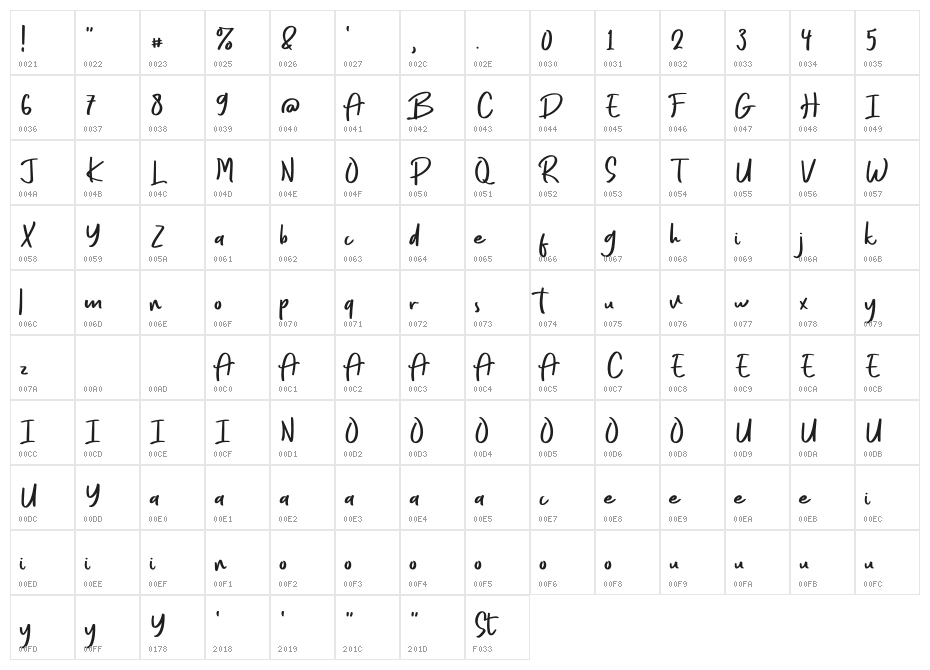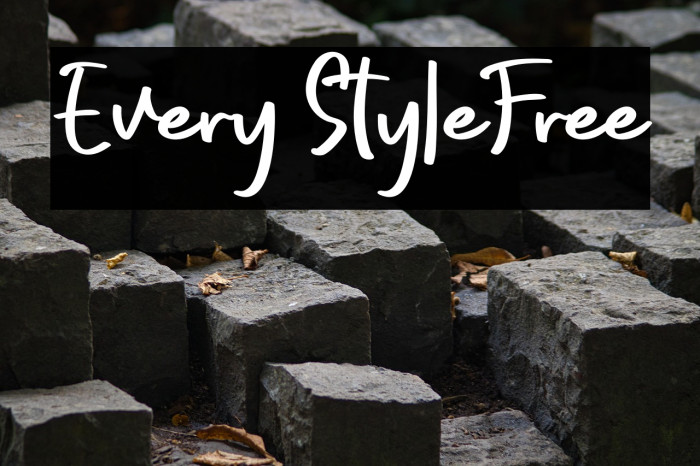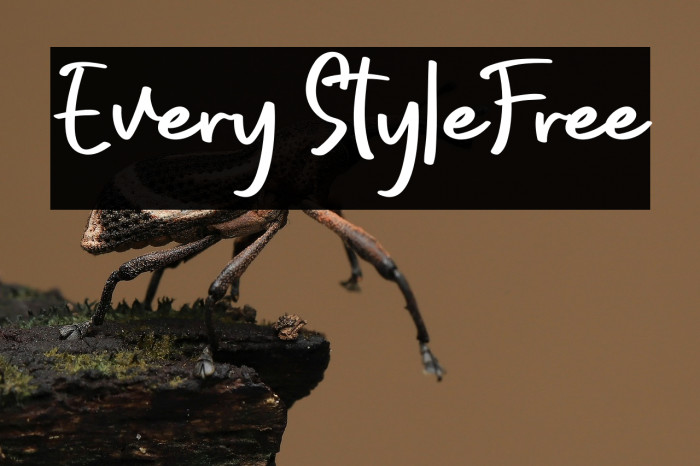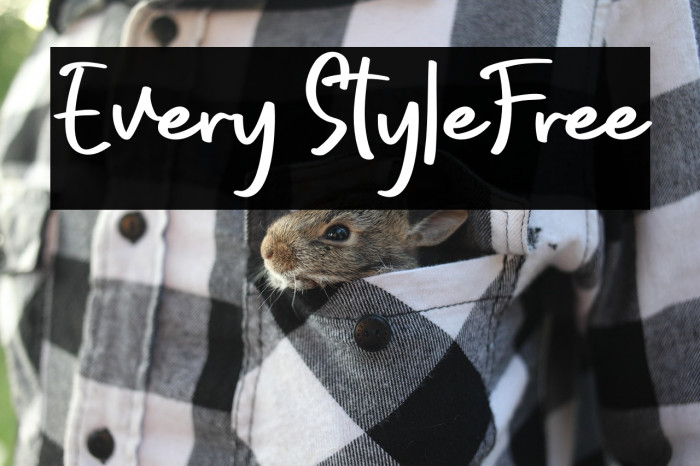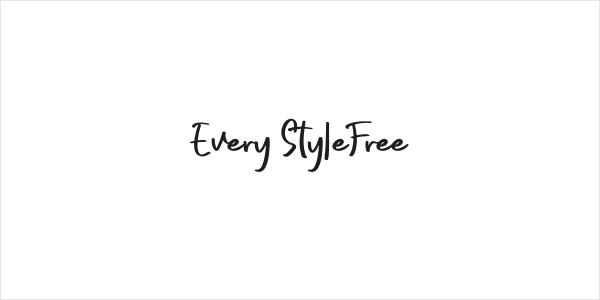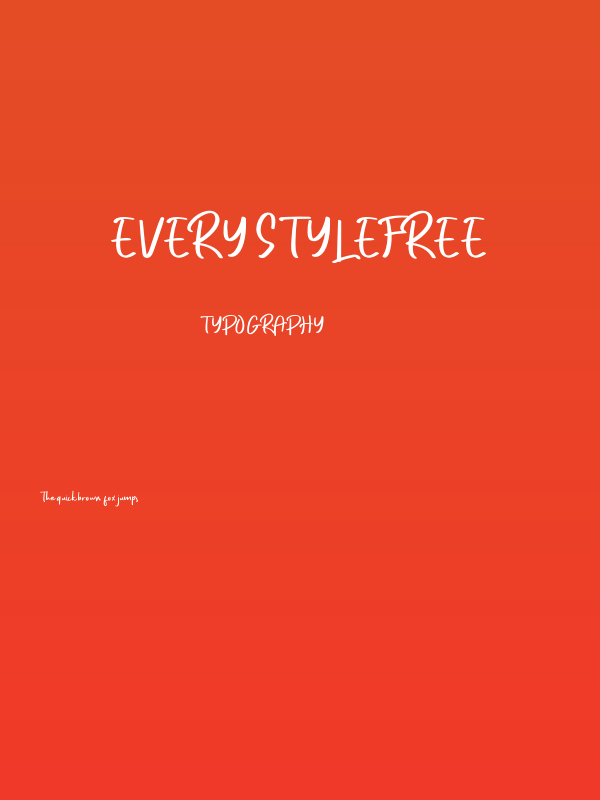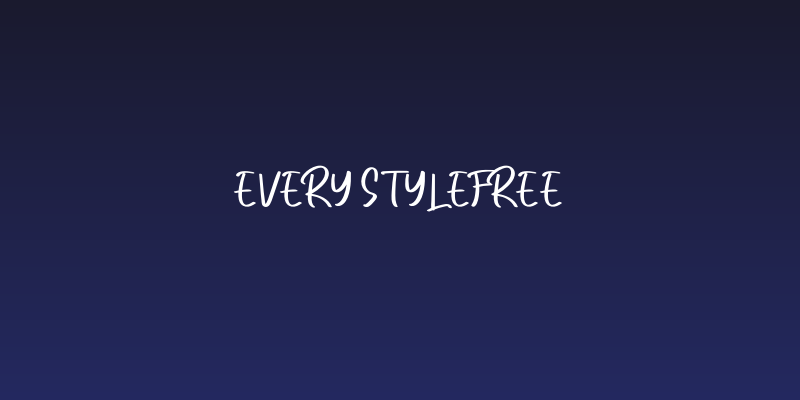
Every StyleFree Font
Every StyleFree Description
This font features a playful and casual handwritten style, characterized by its fluid and dynamic strokes. The uppercase letters are bold and slightly slanted, giving a sense of movement and energy. The lowercase letters maintain a consistent flow, with some letters like 'g' and 'y' having distinctive loops that add to the font's charm. The numerals are clear and easy to read, matching the overall informal aesthetic. Special characters are included, maintaining the same lively style. This font is perfect for projects that require a personal touch or a friendly, approachable vibe.
| Overall Style | Casual, Playful |
| Use Case | Logos, Headlines, Informal Text |
| Proposed Projects | Ideal for greeting cards, invitations, social media graphics, and branding that seeks a personal touch. |